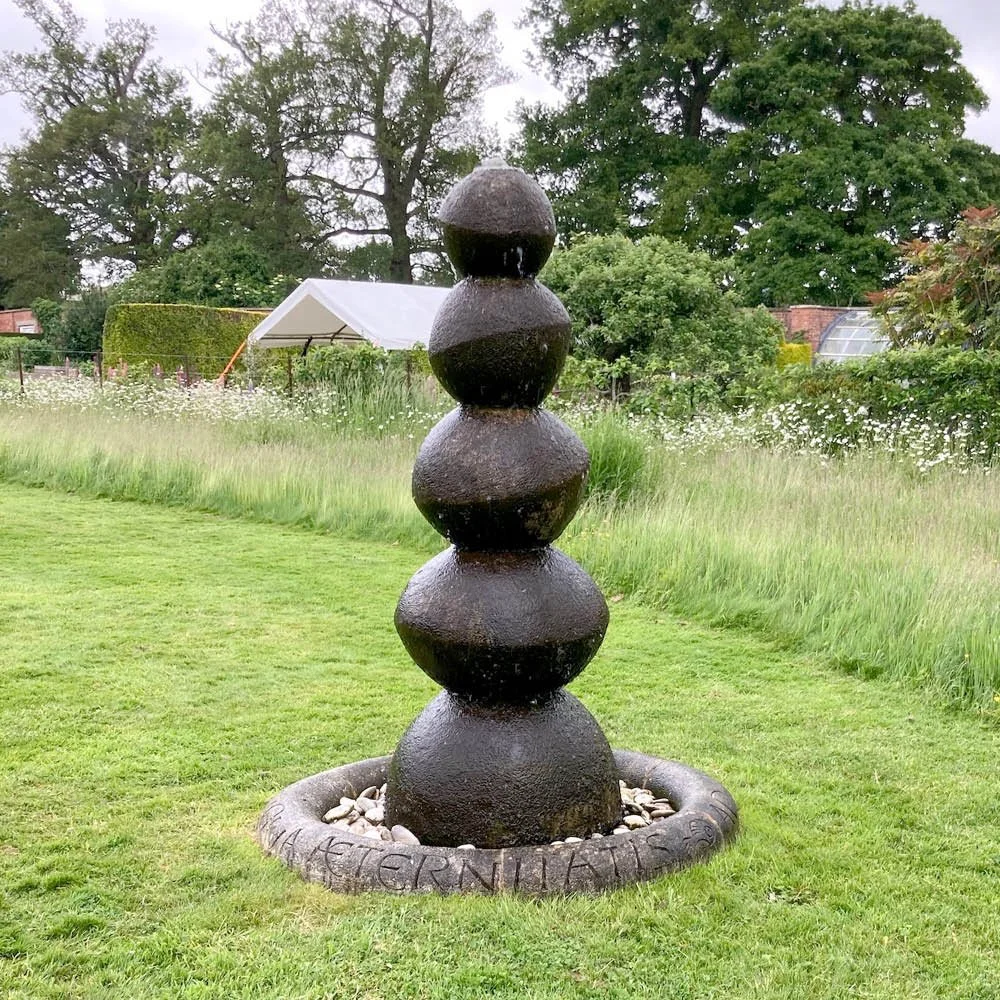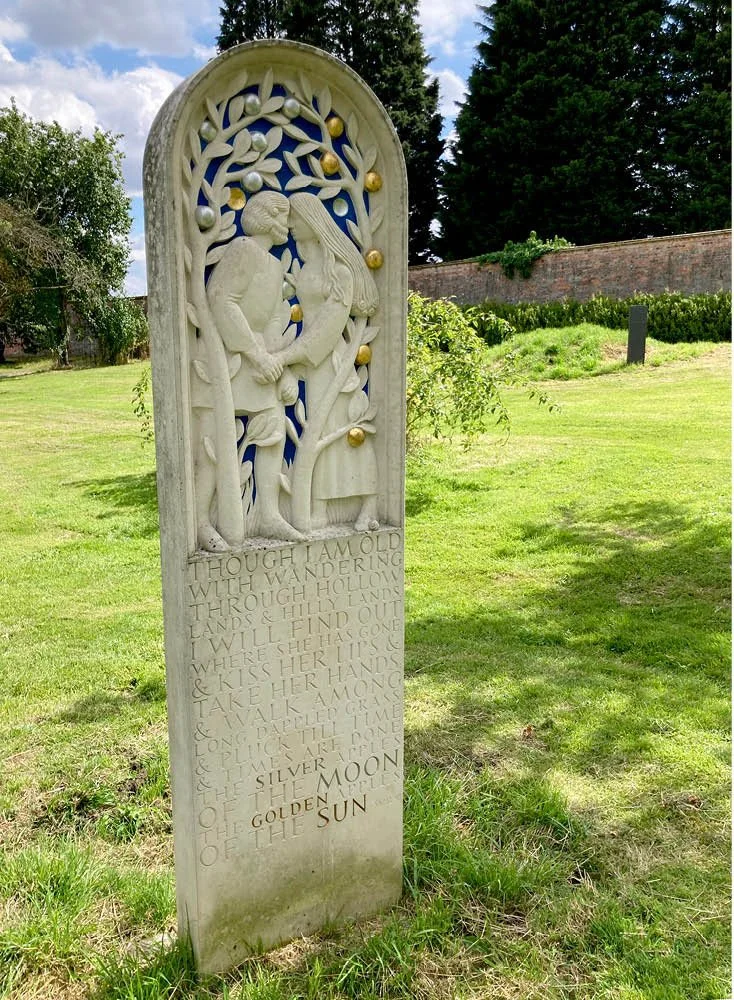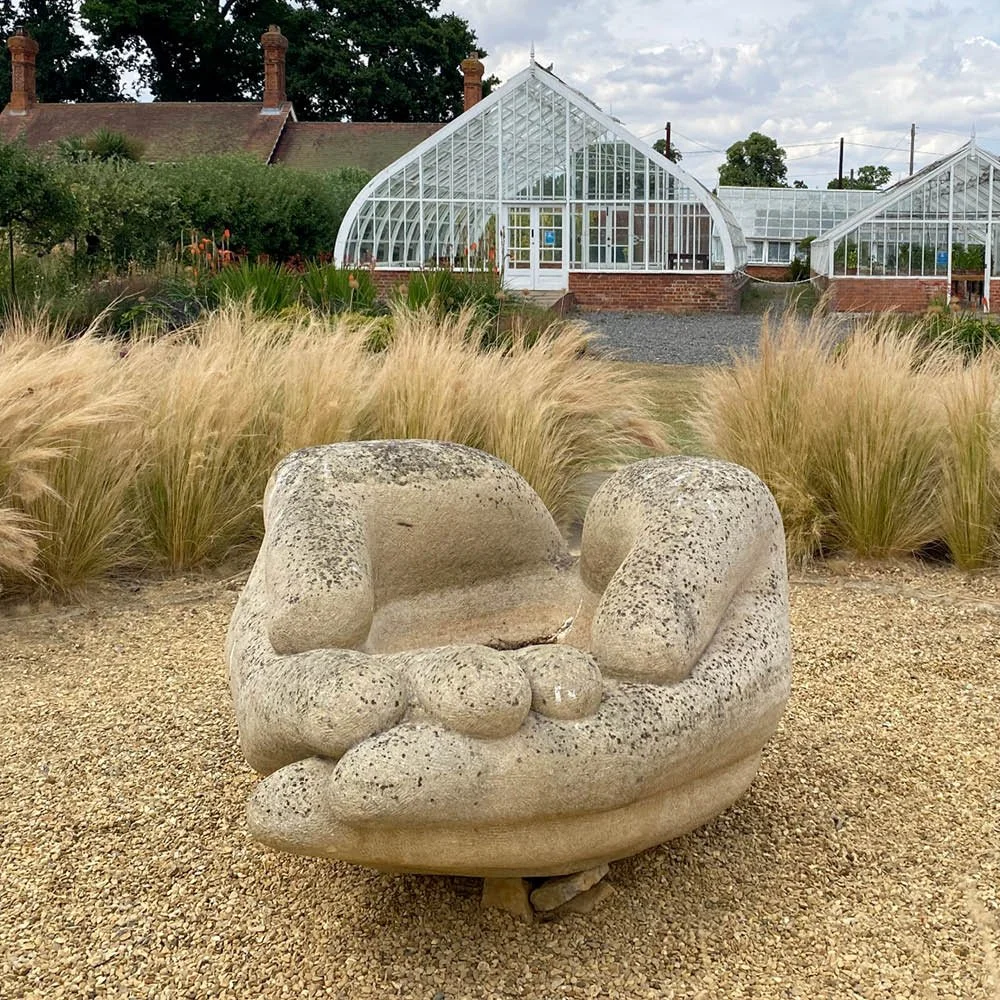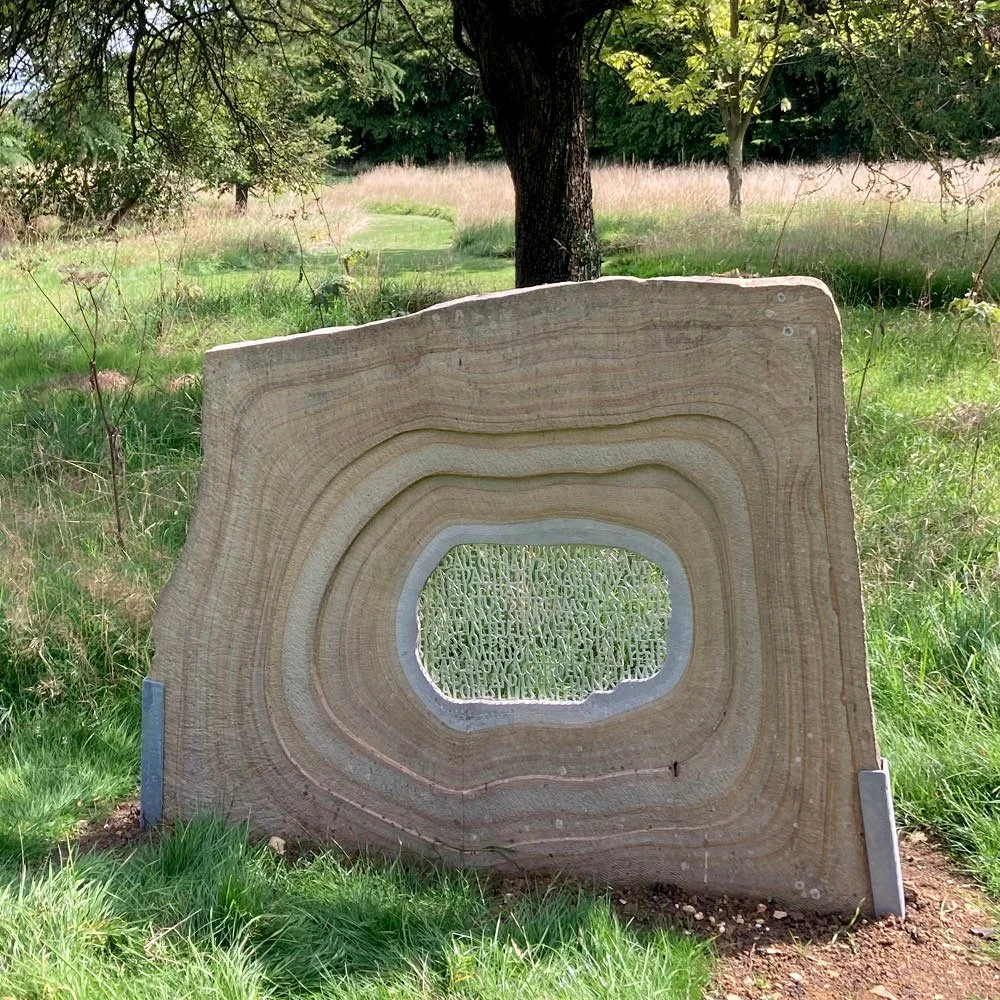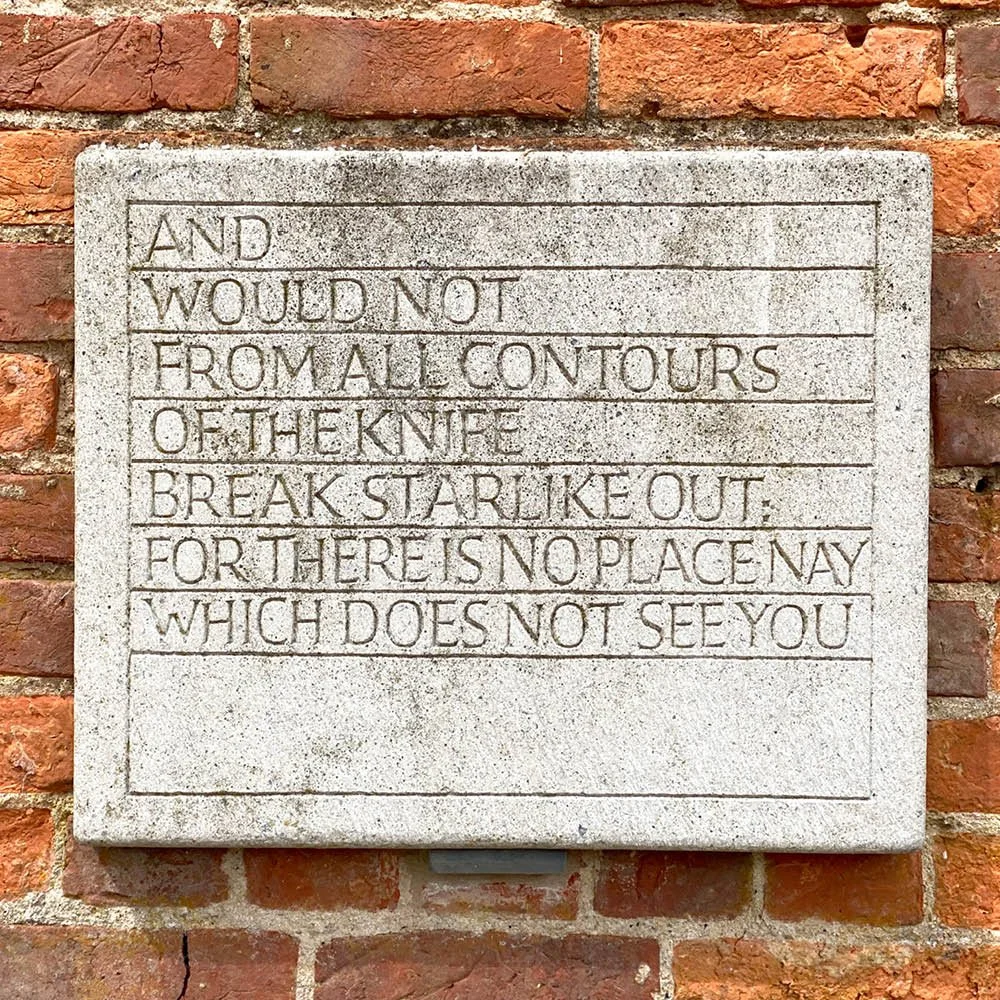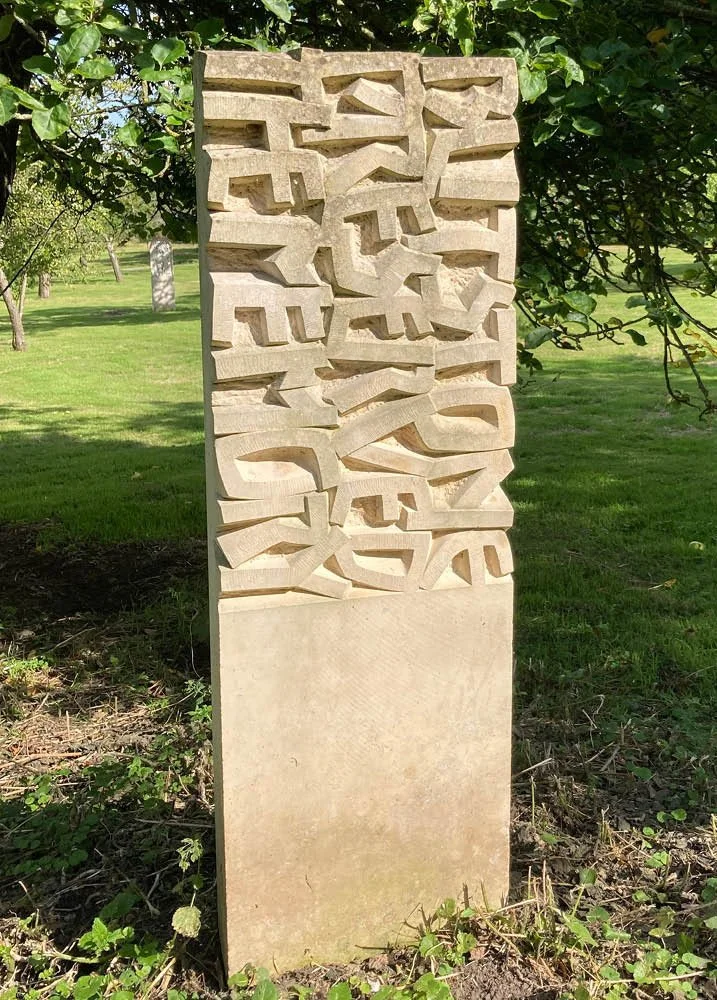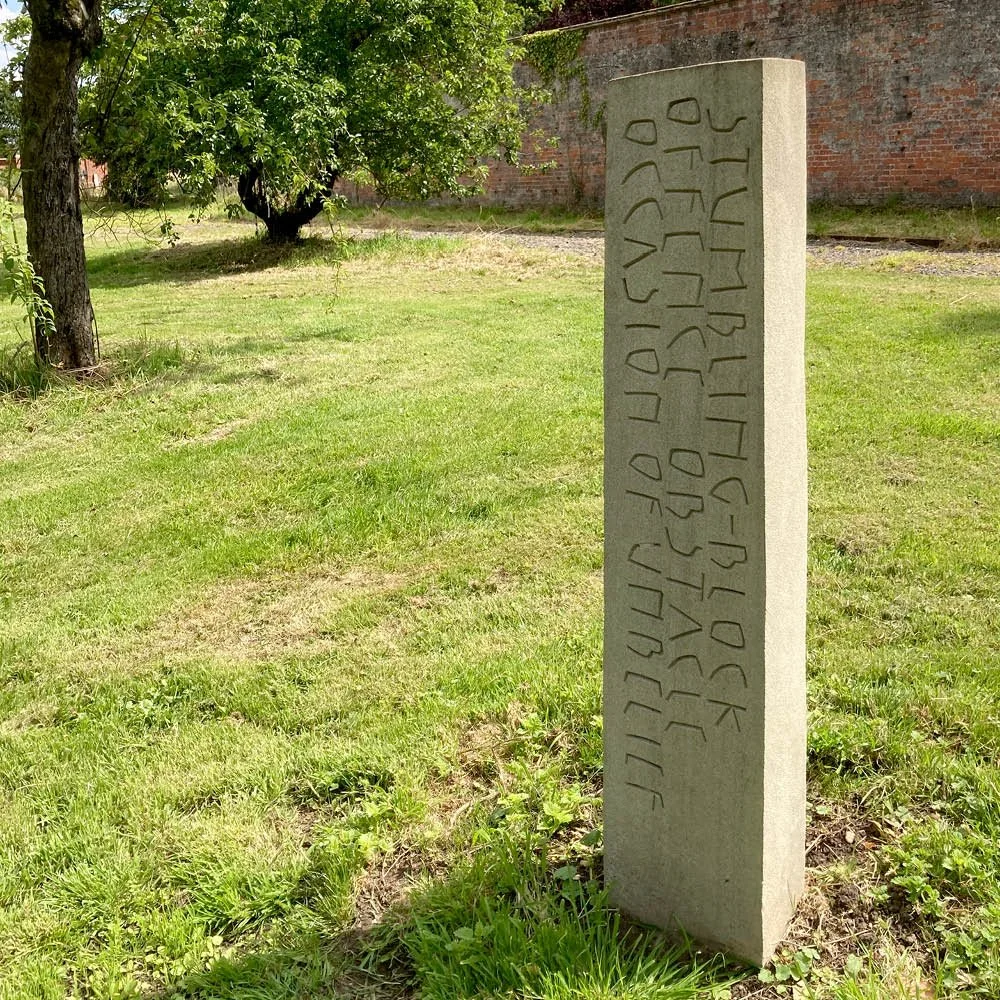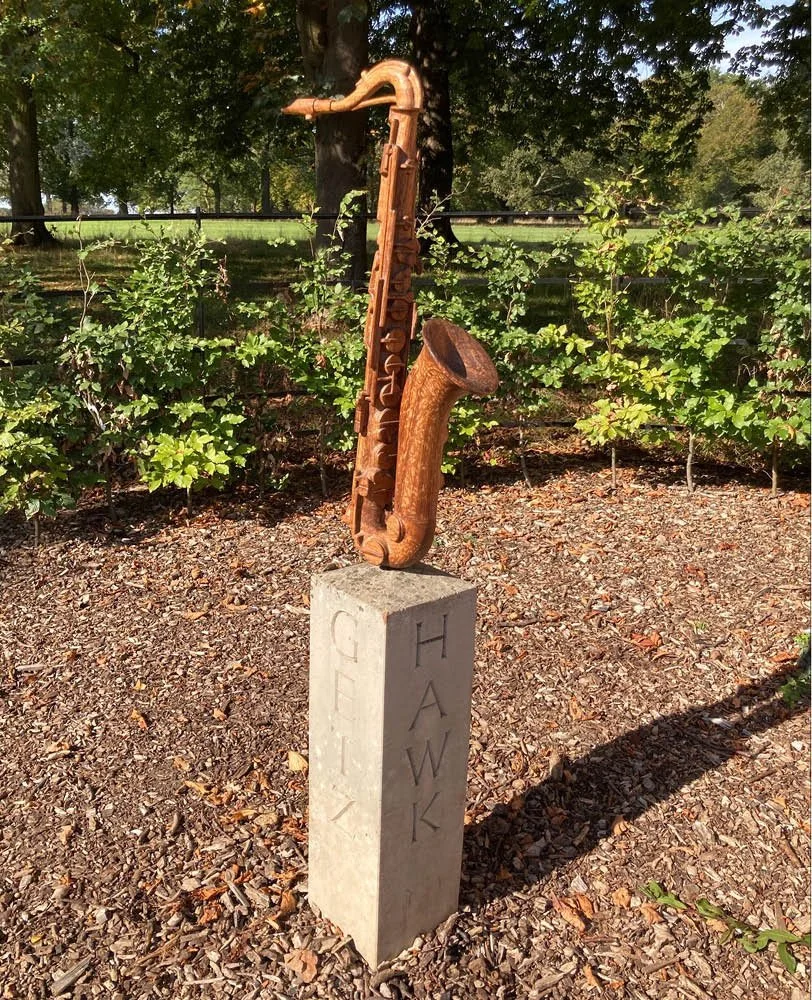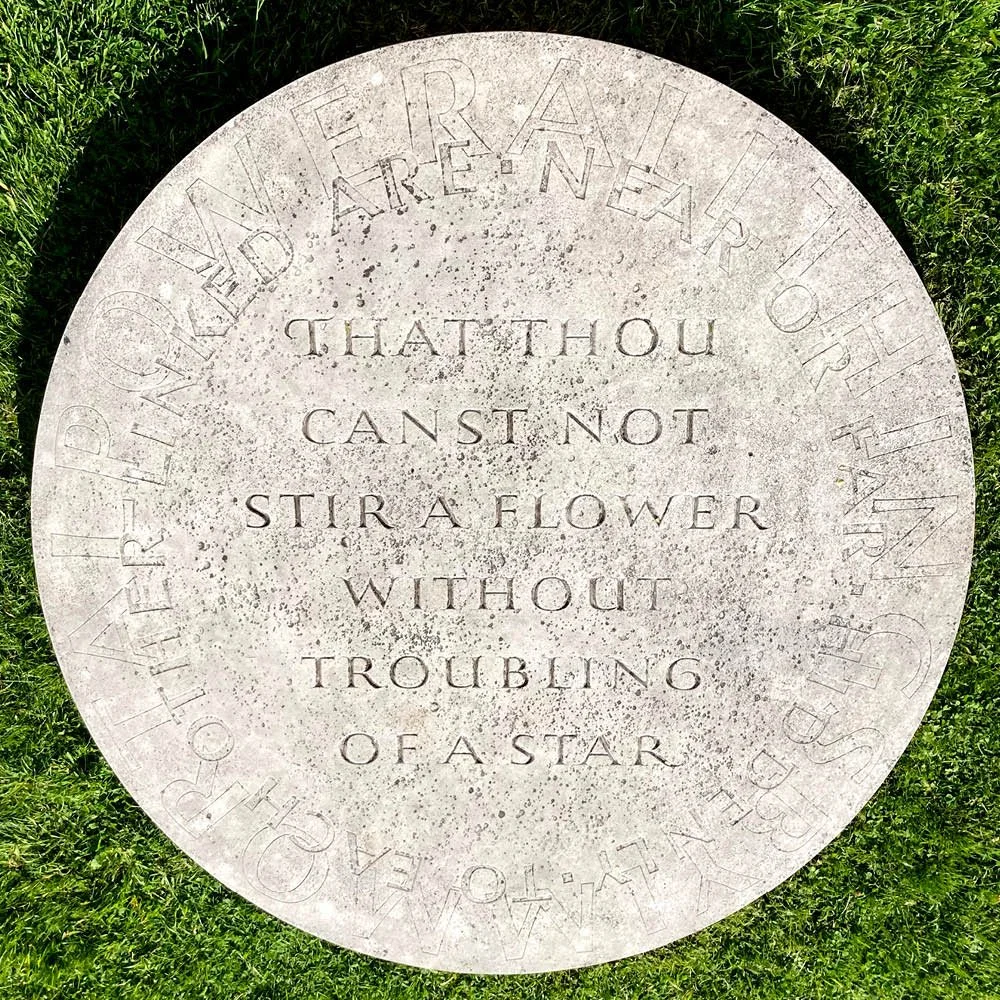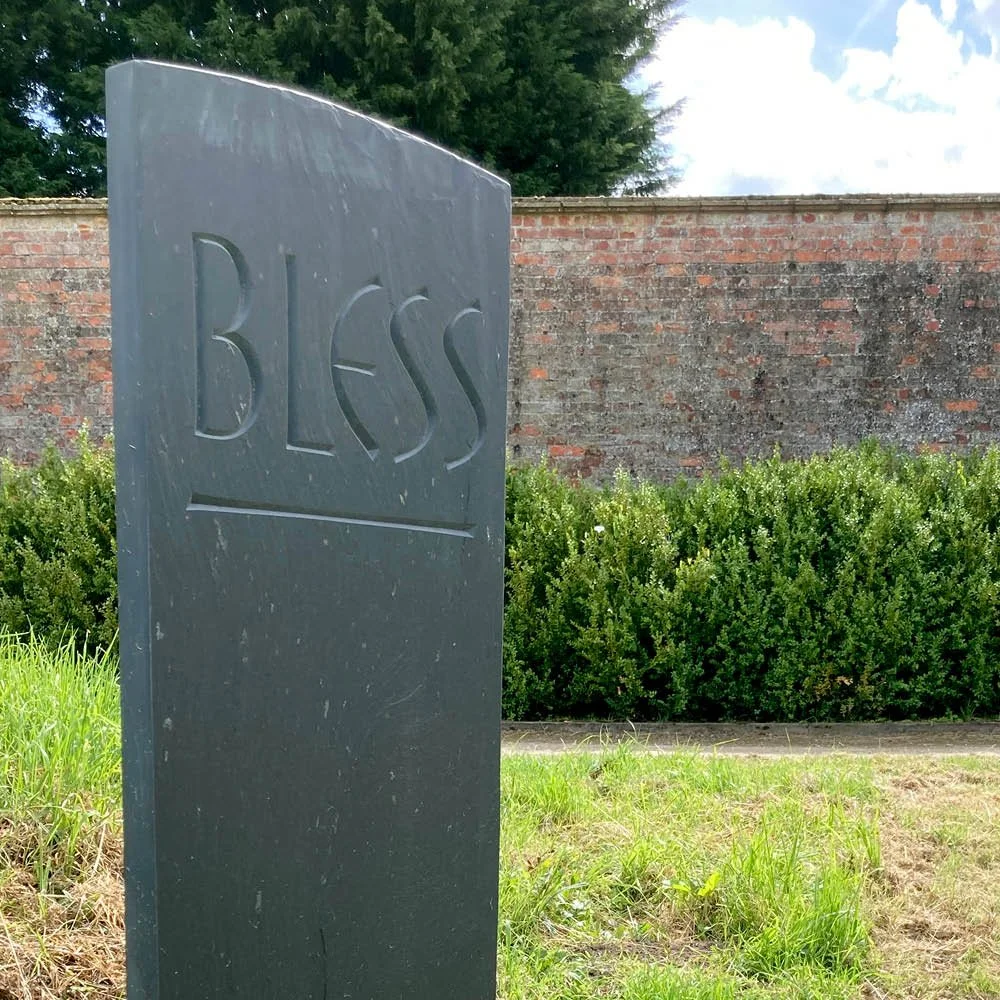
Grimsthorpe Castle
Located in and around the walled garden of Grimsthorpe Castle are 25 works from our Art & Memory Collection.
As with all the works in our collection, they have a memorial theme, created without client or churchyard restrictions. Carved by some of the UK’s foremost lettering artists, these show the range and possibilities of contemporary letter carving.